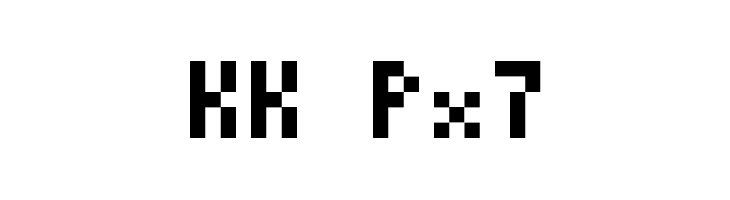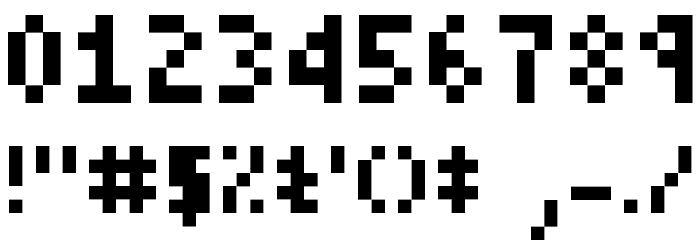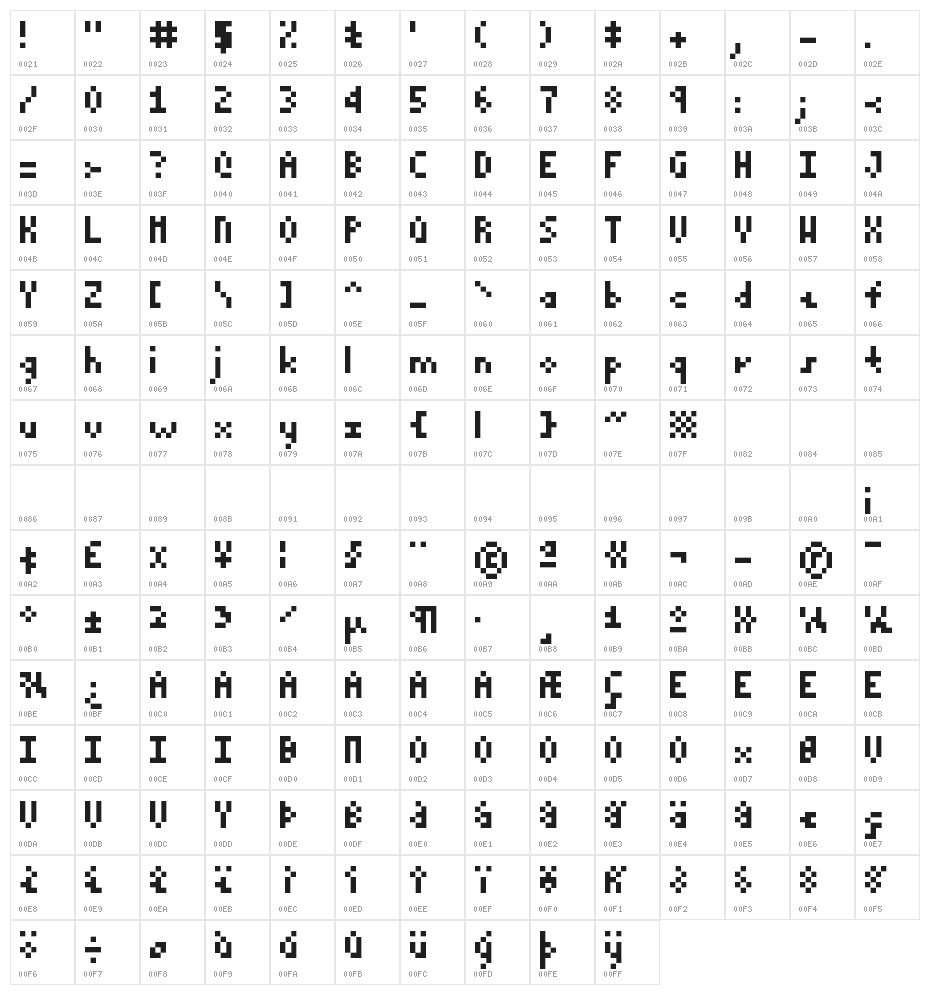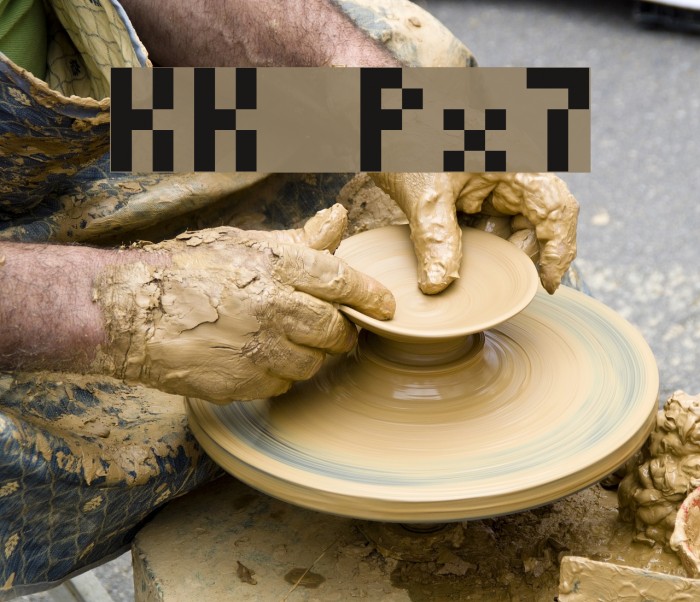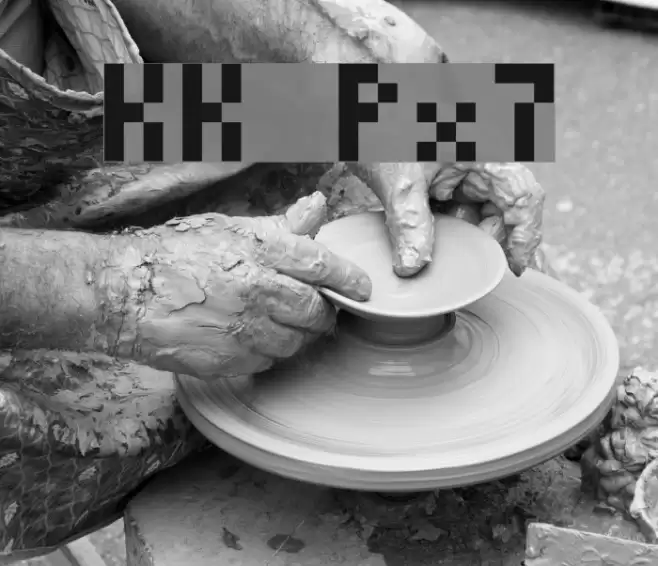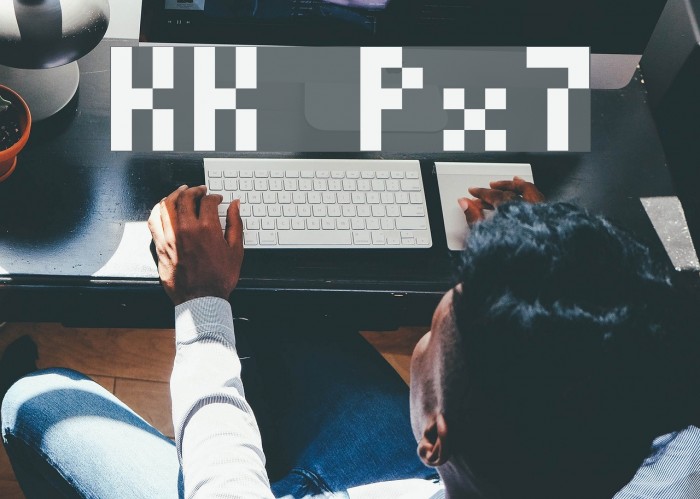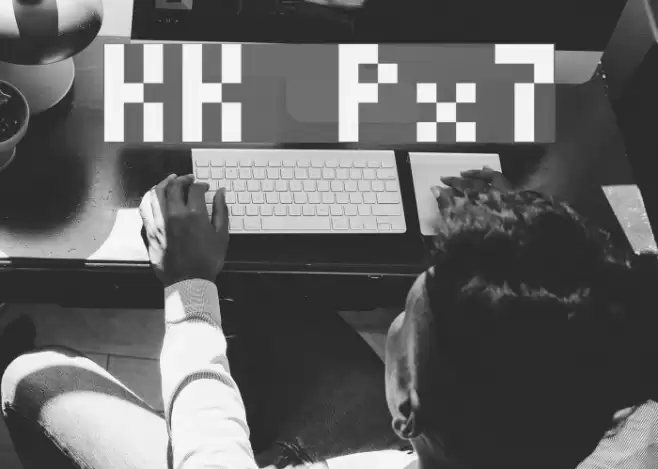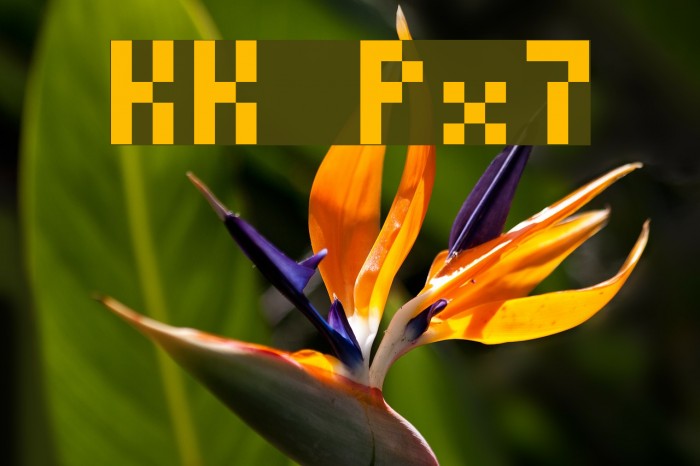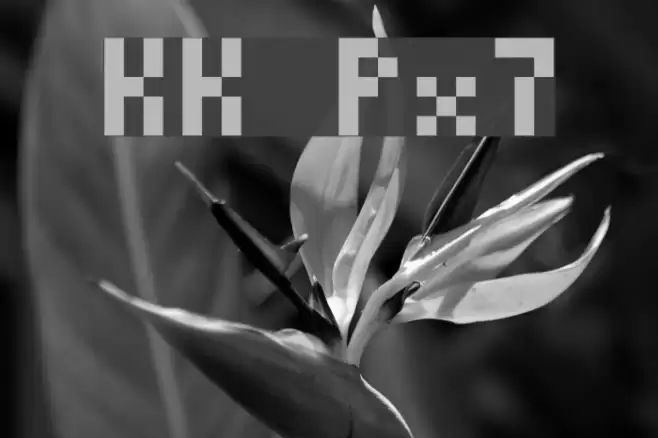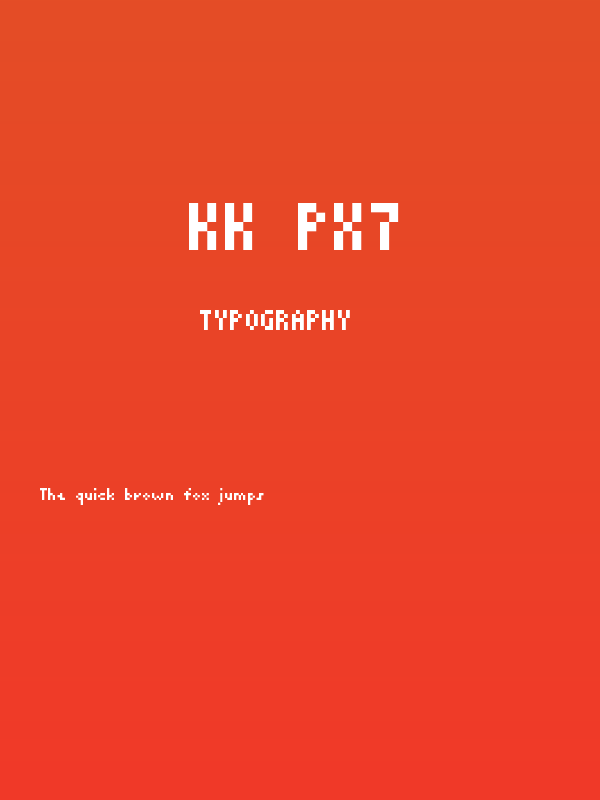
KK Px7 Font
KK Px7 Description
This font features a bold, pixelated design reminiscent of early digital displays and video games. Each character is constructed with a grid-like precision, giving it a distinctly retro and digital aesthetic. The uppercase and lowercase letters maintain a consistent blocky style, while the numerals and special characters complement this theme with their uniform pixelated structure. The font's geometric simplicity and uniformity make it highly legible, even at smaller sizes, while its nostalgic design evokes a sense of vintage computing.
| Proposed Projects | Ideal for retro-themed designs, video game graphics, digital art projects, and any creative work that seeks to evoke nostalgia for early computing. |